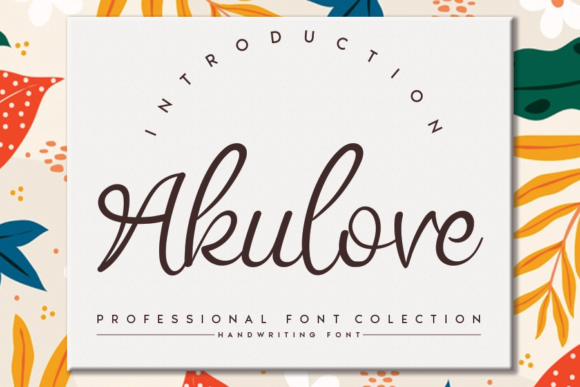
Akulove Font: Authentic Handwritten Charm for Makers
Designing Candle Labels with Akulove Script Handwritten Fonts
When I first loaded Akulove into my design software to create a new line of soy candle labels, I was immediately struck by how this specific typeface captures the messy, beautiful reality of actual handwriting. As a maker who values authenticity over perfection, seeing Akulove results out of a stunning pairing of a brush pen and pencil that makes it look incredibly endearing and authentic changed how I approached my packaging design entirely. Unlike standard script fonts that often feel too rigid or digitally manufactured, this font brought a tactile warmth to my product mockups that usually requires hours of manual lettering adjustments. For small business owners creating physical goods, the difference between a generic computer font and a genuine handwritten style can be the deciding factor in whether a customer picks up your product or scrolls past it.
The visual personality of Akulove sits perfectly at the intersection of casual and elegant, making it an ideal choice for artisanal brands. When designing for curved surfaces like glass jars or tin containers, the natural flow of these letters maintains readability without sacrificing that coveted handmade aesthetic. I found that using this gorgeous and unique handwritten font to bring any DIY project to life allowed me to highlight scent names like "Lavender & Sage" or "Spiced Vanilla" with a sense of intimacy that mass-produced labels simply cannot replicate. The varying stroke widths mimic the pressure of a real hand holding a brush pen, adding depth and shadow even when printed on flat matte sticker paper. This level of detail signals quality to buyers, suggesting that the same care put into the typography was also put into pouring the wax and blending the fragrance oils.
Akulove for Wedding Invitations and Elegant Stationery Suites
Creating wedding stationery requires a delicate balance of romance and legibility, and incorporating Akulove into invitation suites offers a modern alternative to traditional calligraphy. In the realm of premium fonts for bridal markets, this typeface provides the organic texture couples crave while remaining clean enough for guests to read essential details like dates and venue names. When I tested Akulove for a rustic-chic wedding welcome board mockup, the interplay between the bold brush strokes and finer pencil-like lines created a visual hierarchy that guided the eye naturally across the layout. It is particularly effective for highlighting the couple’s names or short phrases like "Welcome to our Beginning," where the emotional weight of the words needs to be matched by the visual weight of the lettering.
For stationery designers working with print-on-demand services or home printers, understanding how this font renders at different sizes is crucial for production value. While Akulove shines as a display font for headers and titles, it pairs exceptionally well with a simple sans serif or minimalist serif font for body text like addresses and RSVP details. This font pairing strategy ensures that the overall design remains sophisticated rather than cluttered. I have found that limiting the use of Akulove to key focal points prevents visual fatigue and allows its unique character traits to stand out. Whether you are designing digital templates for Etsy or printing luxury cotton cardstock, checking the included alternates and ligatures within the font file can help you customize connections between letters, ensuring no two invitations look exactly identical and maintaining that bespoke, high-end feel.
Using Akulove in Printable Wall Art and Digital Downloads
Digital product creators know that listing photos must convey texture and emotion through a screen, and using Akulove in printable wall art designs helps bridge the gap between digital file and physical decor. When designing inspirational quotes or nursery art, the authentic imperfections in this script handwritten font add a layer of human connection that resonates with buyers looking for meaningful home accents. I recently used Akulove to create a series of affirmation cards, and the endearing quality of the letterforms made the messages feel like they were written personally by a friend rather than generated by a machine. This emotional engagement is vital for conversion rates in the digital download niche, where customers are buying a feeling as much as they are buying a file.
From a technical production standpoint, Akulove is versatile enough for various aspect ratios and resolutions required by digital marketplaces. However, because the font mimics dry media like pencil and brush, it is important to test your exports to ensure the edges remain crisp when scaled up for large-format printing. When preparing files for customers, consider offering variations where Akulove is used for the main quote while supporting text utilizes a clean, readable typeface. This not only improves accessibility but also enhances the perceived professional quality of your digital assets. For sellers offering editable templates, including usage tips for this specific font can help your customers achieve the best results, reducing support inquiries and increasing positive reviews regarding the ease of customization.
Crafting Boutique Packaging and Product Tags with Akulove
Small details often define brand identity for handmade sellers, and applying Akulove to boutique tags and packaging elements creates a cohesive unboxing experience. Whether you are stamping kraft paper bags, printing tissue paper patterns, or designing hang tags for knitwear, this font brings a consistent thread of warmth throughout your customer’s journey. I have used Akulove to design "Thank You" stickers and care instruction cards, finding that the friendly, approachable style softens the transactional nature of these necessary inserts. The font’s inherent charm transforms standard operational materials into memorable touchpoints that encourage social media sharing and repeat business.
When working with cutting machines like Cricut or Silhouette for vinyl decals or iron-on transfers, the complexity of handwritten fonts can sometimes pose challenges, but Akulove strikes a practical balance. The strokes are generally substantial enough to weed cleanly, yet detailed enough to retain their artistic integrity on smaller items like mug wraps or tote bag labels. Before committing to a large production run, always perform a test cut or print to verify that the pencil-texture effects translate well to your specific material. Additionally, if you plan to use this font on merchandise for sale, verifying your commercial font licensing is a non-negotiable step in protecting your business. Understanding the terms of use ensures you can confidently scale your product line, from seasonal holiday tags to everyday branding, knowing your creative foundation is both legally sound and aesthetically perfect.
Font Pairing and Readability Tips for Akulove Projects
Maximizing the impact of Akulove requires thoughtful composition, especially when integrating it into layouts that demand both style and function. Because this font carries so much visual personality, it works best when given space to breathe against negative space or solid backgrounds. In my own design process, I avoid placing Akulove directly over busy photographic textures unless there is sufficient contrast, as the intricate brush and pencil details can get lost. Instead, I often use it on solid color blocks or simple watercolor washes that complement its organic vibe without competing for attention. This deliberate placement ensures that the endearing and authentic qualities of the typeface remain the star of the show.
Selecting the right partner font is equally important for maintaining professional standards in your creative projects. For modern, editorial-style designs, try pairing Akulove with a geometric sans serif to create a striking contrast between old-world craft and contemporary minimalism. Conversely, for vintage or farmhouse aesthetics, a classic serif font can ground the whimsy of Akulove with traditional stability. Always remember that while Akulove is a gorgeous and unique handwritten font to bring any DIY project to life, its primary role should be decorative emphasis rather than functional communication for long paragraphs. By respecting its intended use as a display typeface and reserving simpler fonts for dense information, you ensure your final products are as readable as they are beautiful, ultimately leading to happier customers and stronger brand recognition.